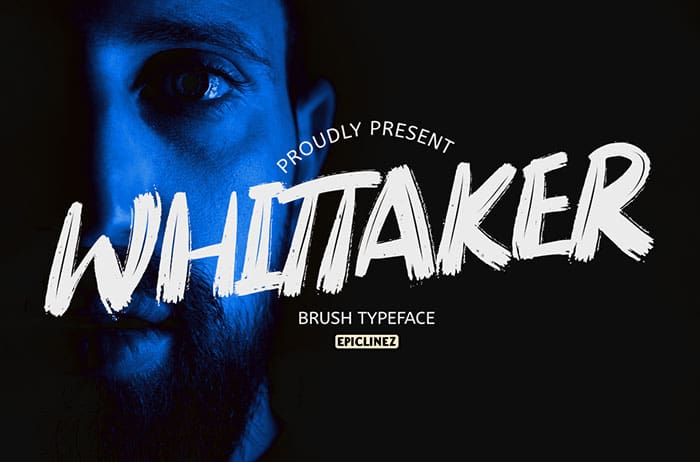
Free Whittaker Brush Font
Whittaker Brush Font
Free Whittaker brush font is an authentic typeface. This all caps font is suitable for posters, magazines, apparels, movie headlines, packaging and more. This font is available only for personal use. Created this font by Epiclinez. You can also search more freeĀ  Brush Fonts. Thanks!